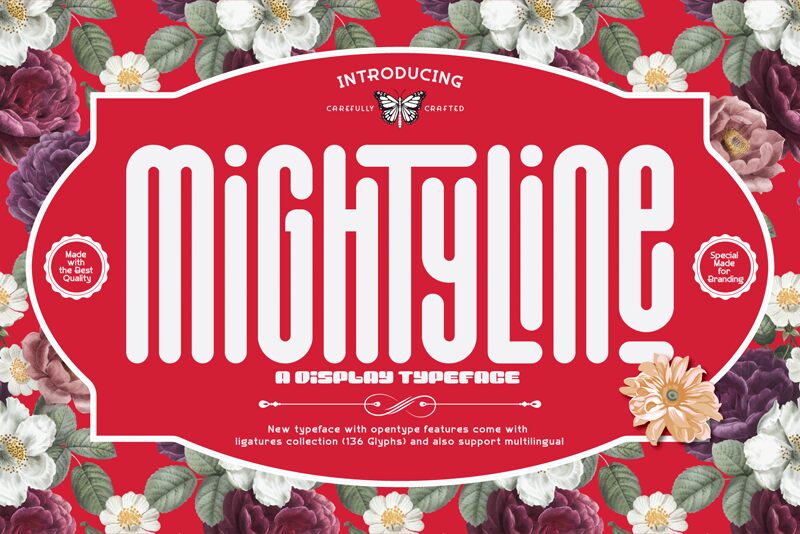
Mightyline Regular
Mightyline font from Linecreative is a condensed, light display font with uniform thickness and geometric shapes. Its retro influence and futuristic vibe are accentuated by rounded terminals that can instantly catch the eye. The consistent letterforms make this creation visually expressive and easy to read.